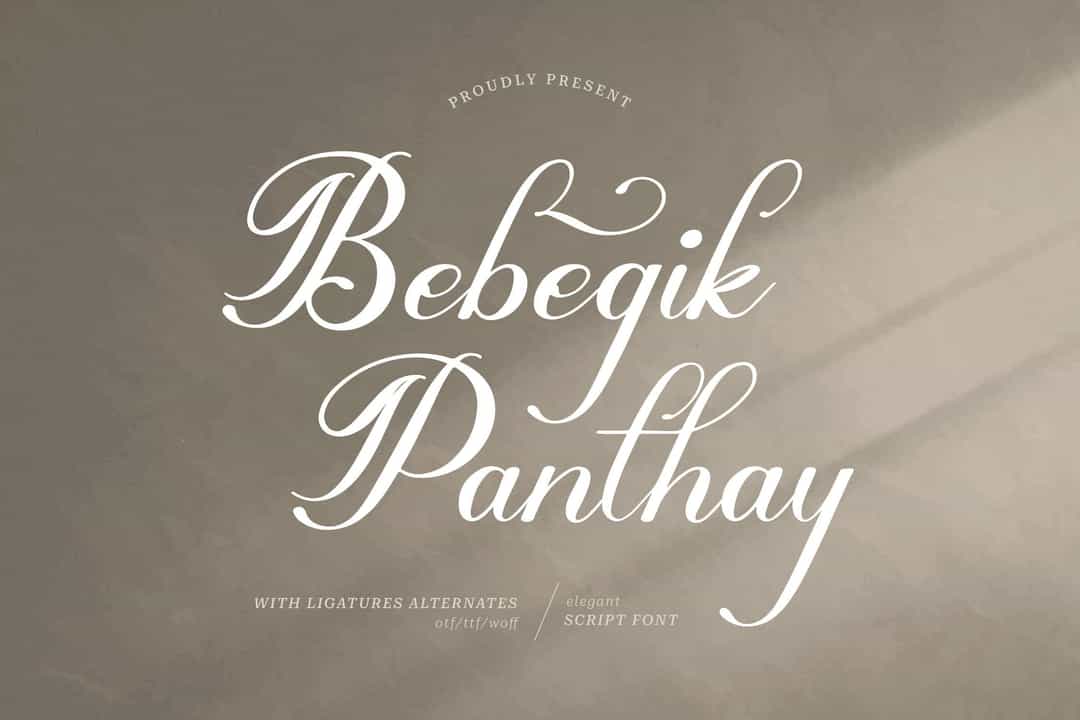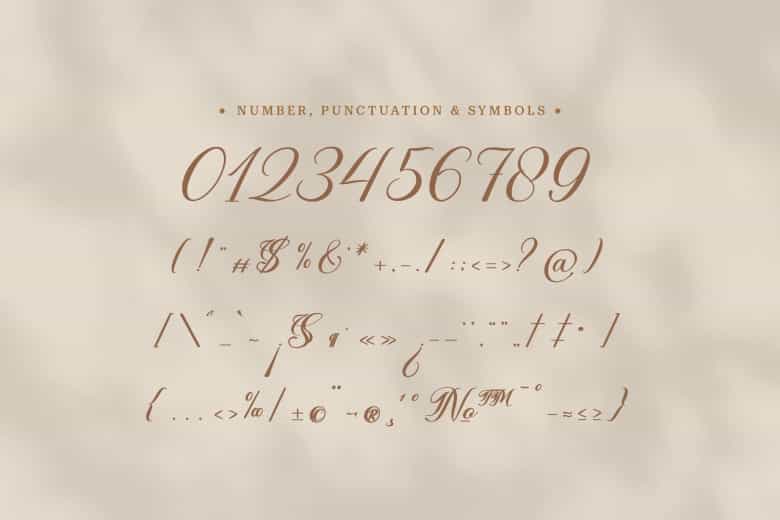
Bebegik Panthay is a calligraphy font created by Denustudios, for various projects like logos, branding work, home decor designs, packaging, mugs, inspirational quotes, posters, tote bags, apparel designs, book covers, business cards, event invitations, greeting cards, labels, photography enhancements, watermarks for images and special occasions. It’s ideal, for adding a touch of script to all your endeavors.